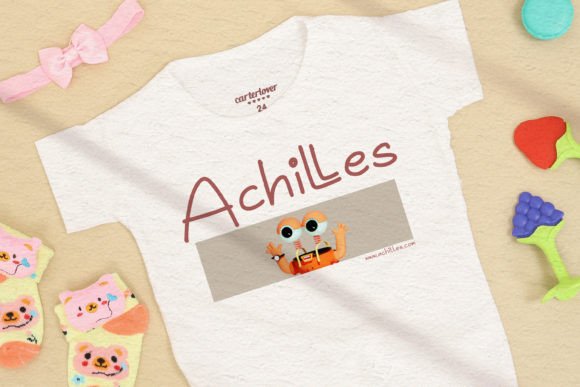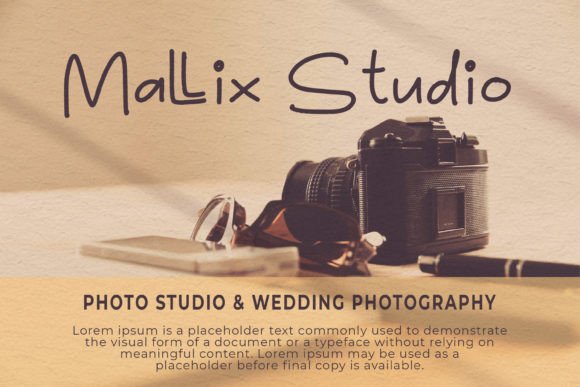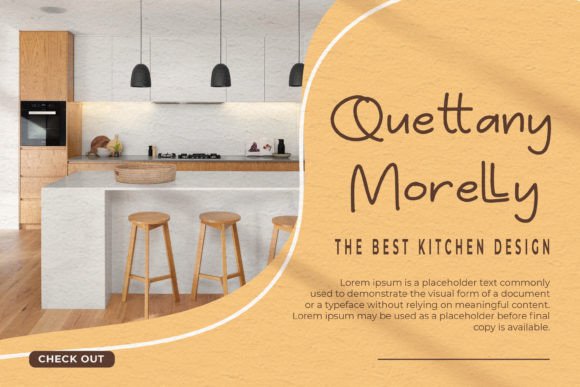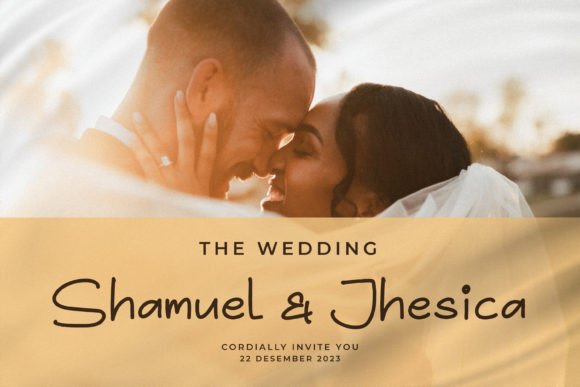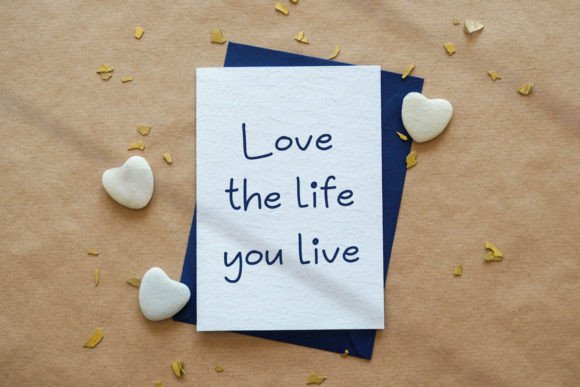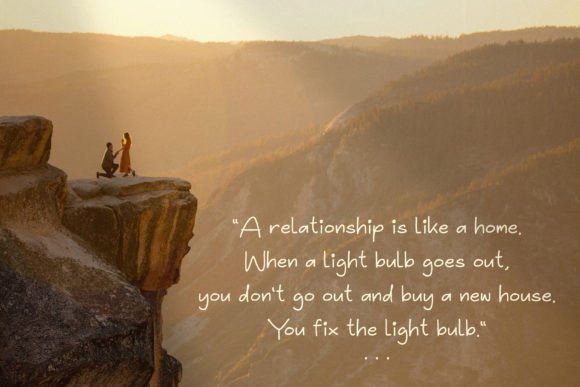
Introducing Graffell Notes Font: Elevate Your Designs with Elegance
Are you a designer or crafter looking for a premium handwritten font to take your projects to the next level? Look no further than Graffell Notes, a stunning font from Integritype Studio. With its elegant and sophisticated feel, Graffell Notes is perfect for a wide range of applications, from logos and branding to homeware designs, product packaging, and more.
The Perfect Font for Luxury Projects
Graffell Notes is a premium handwritten font that exudes luxury and sophistication. Its unique, flowing script is perfect for designers and crafters who want to add a touch of elegance to their projects. Whether you’re working on a high-end branding campaign, a special event invitation, or a premium product packaging design, Graffell Notes is the perfect choice.
One of the best things about Graffell Notes is its versatility. This font can be used for a wide range of design projects, including:
• Logos and branding: Create a lasting impression with a custom logo or brand identity that showcases your unique style.
• Homeware designs: Add a touch of elegance to your home decor with custom wall art, throw pillows, and more.
• Product packaging: Stand out on store shelves with eye-catching packaging that features the Graffell Notes font.
• Mugs and ceramics: Create custom mugs, plates, and other ceramics that make perfect gifts or personal items.
• Quotes and posters: Add a touch of inspiration to your walls with custom quotes and posters featuring Graffell Notes.
• Shopping bags: Elevate your brand with custom shopping bags that feature the Graffell Notes font.
• T-shirts and apparel: Create custom t-shirts, hoodies, and other apparel that showcases your unique style.
• Book covers and journals: Add a touch of elegance to your book covers and journals with the Graffell Notes font.
• Business cards and stationery: Create custom business cards, letterheads, and other stationery that showcases your professional style.
• Invitation cards and greeting cards: Make a lasting impression with custom invitation cards and greeting cards that feature the Graffell Notes font.
• Labels and watermarks: Add a touch of sophistication to your labels and watermarks with the Graffell Notes font.
Why Choose Graffell Notes?
So why choose Graffell Notes over other fonts? Here are just a few reasons:
• Unique and elegant design: Graffell Notes features a unique and elegant handwritten script that will elevate your designs.
• High-quality font: This font is carefully crafted to ensure that it looks great in any size or application.
• Experiment with different sizes and styles: Graffell Notes looks great in a wide range of sizes and styles, so don’t be afraid to experiment.
• Pair it with other fonts: Graffell Notes pairs well with a wide range of other fonts, so try pairing it with some of your favorite fonts.
• Use it for headlines and titles: Graffell Notes is perfect for headlines and titles, but it can also be used for body text.
Graffell Notes is a premium handwritten font that is perfect for designers and crafters who want to add a touch of elegance to their projects. With its unique and sophisticated feel, Graffell Notes is perfect for a wide range of applications, from logos and branding to homeware designs, product packaging, and more. Whether you’re working on a high-end branding campaign or a special event invitation, Graffell Notes is the perfect choice.